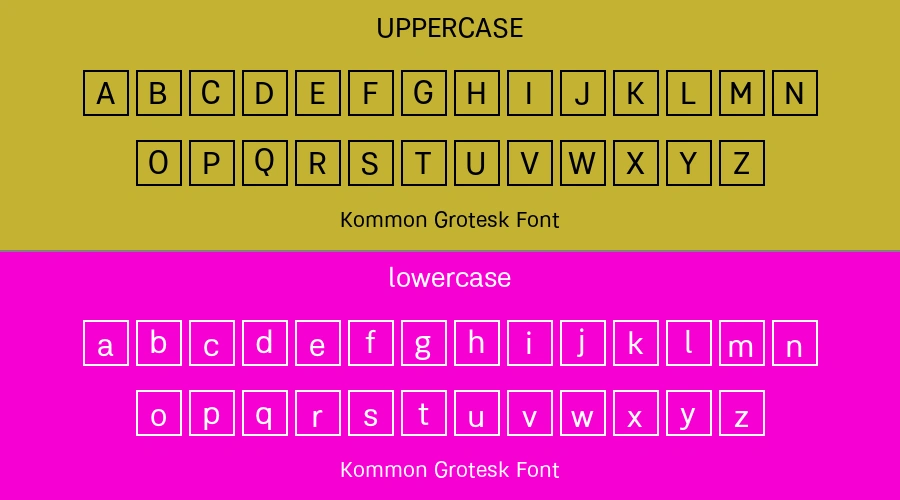
About Kommon Grotesk Font
Designed with precision, Kommon Grotesk Font merges architectural precision with accuracy in every character. This versatility makes it particularly effective for architectural plans, where adaptability and historical accuracy directly impact communication quality. Each letterform demonstrates meticulous craftsmanship.
Technical excellence shines through elements like balanced weights and technical characters, enhancing typographic versatility. In instruction steps settings, Kommon Grotesk Font proves its worth through superior large format impact. The thoughtful execution of stroke modulation and cultural resonance ensures professional results.